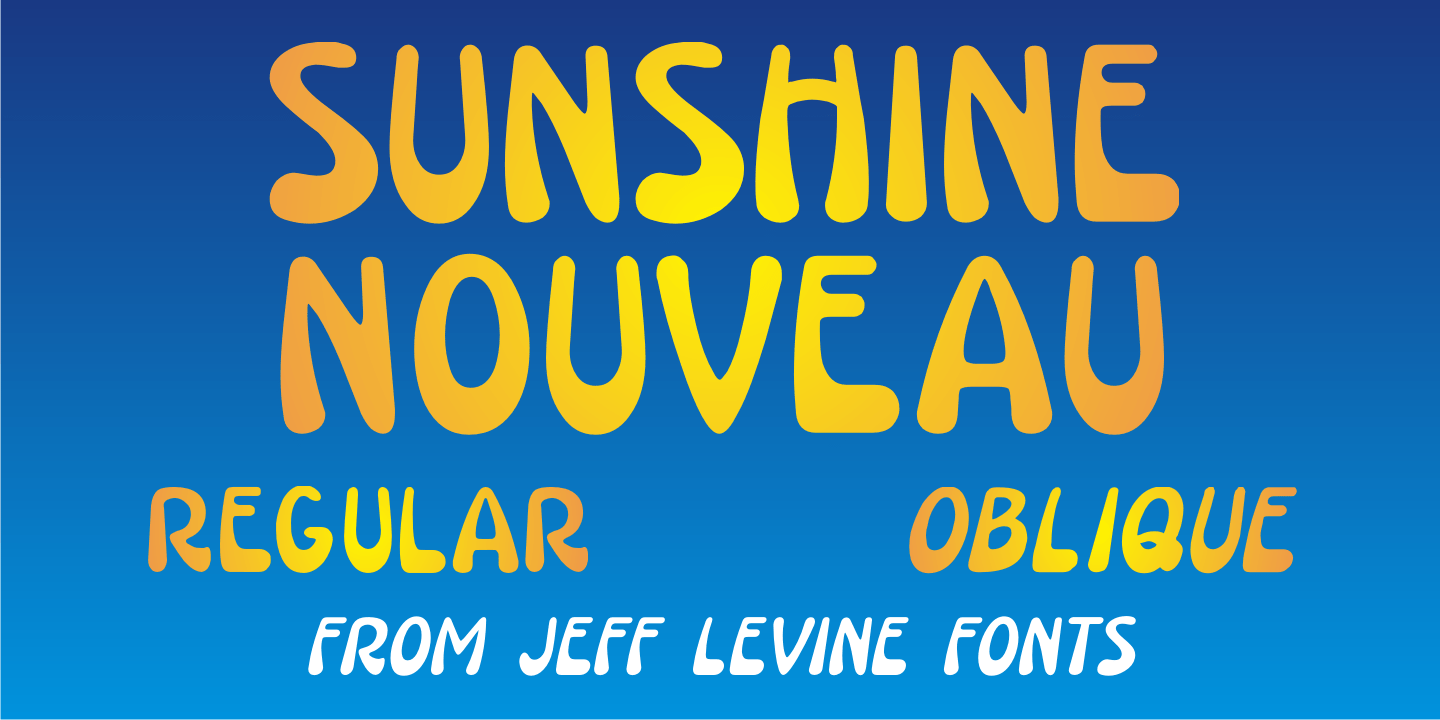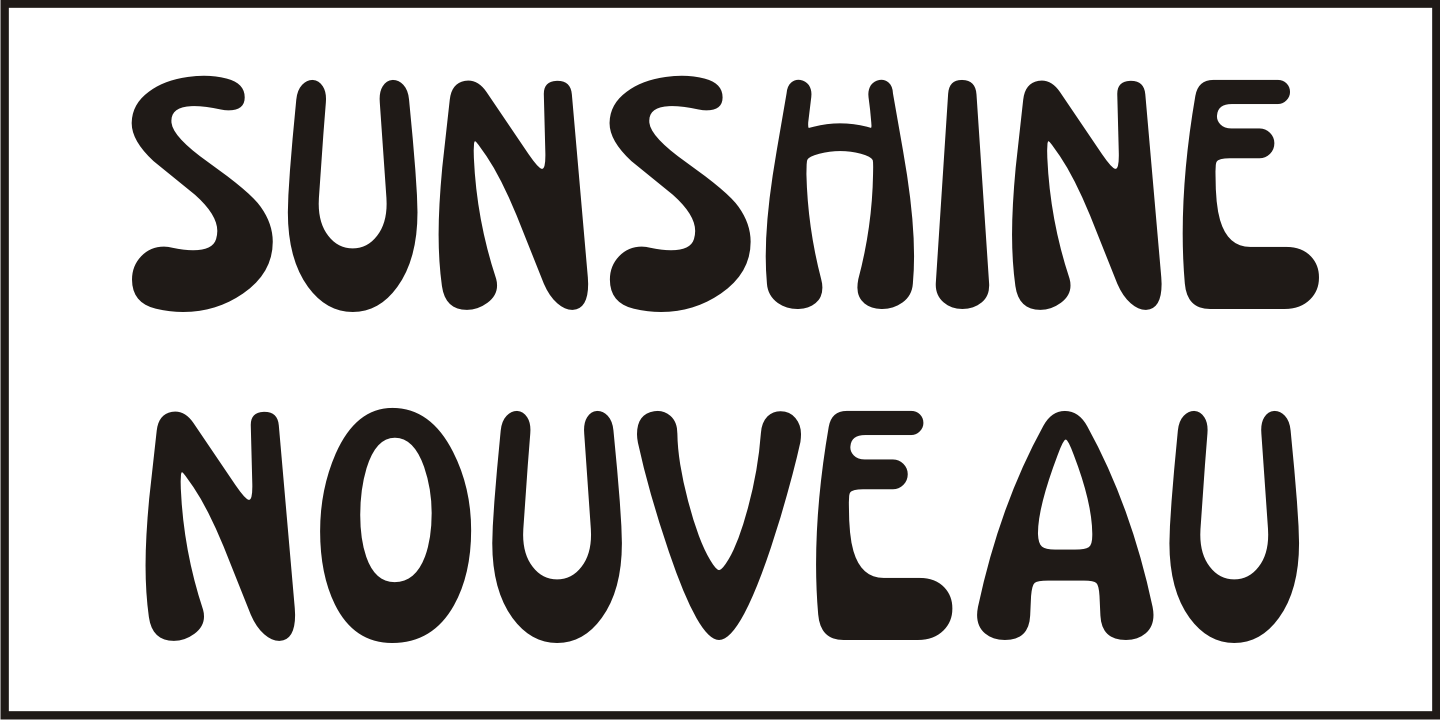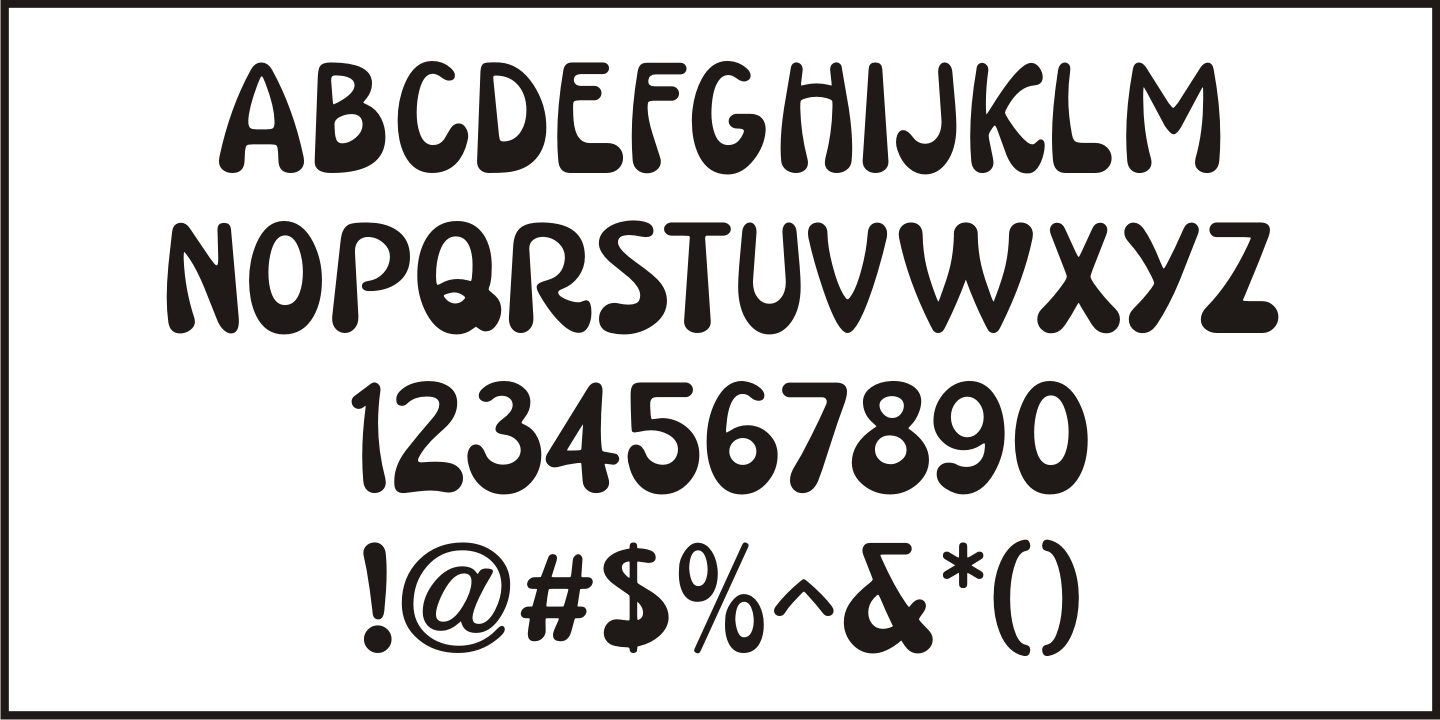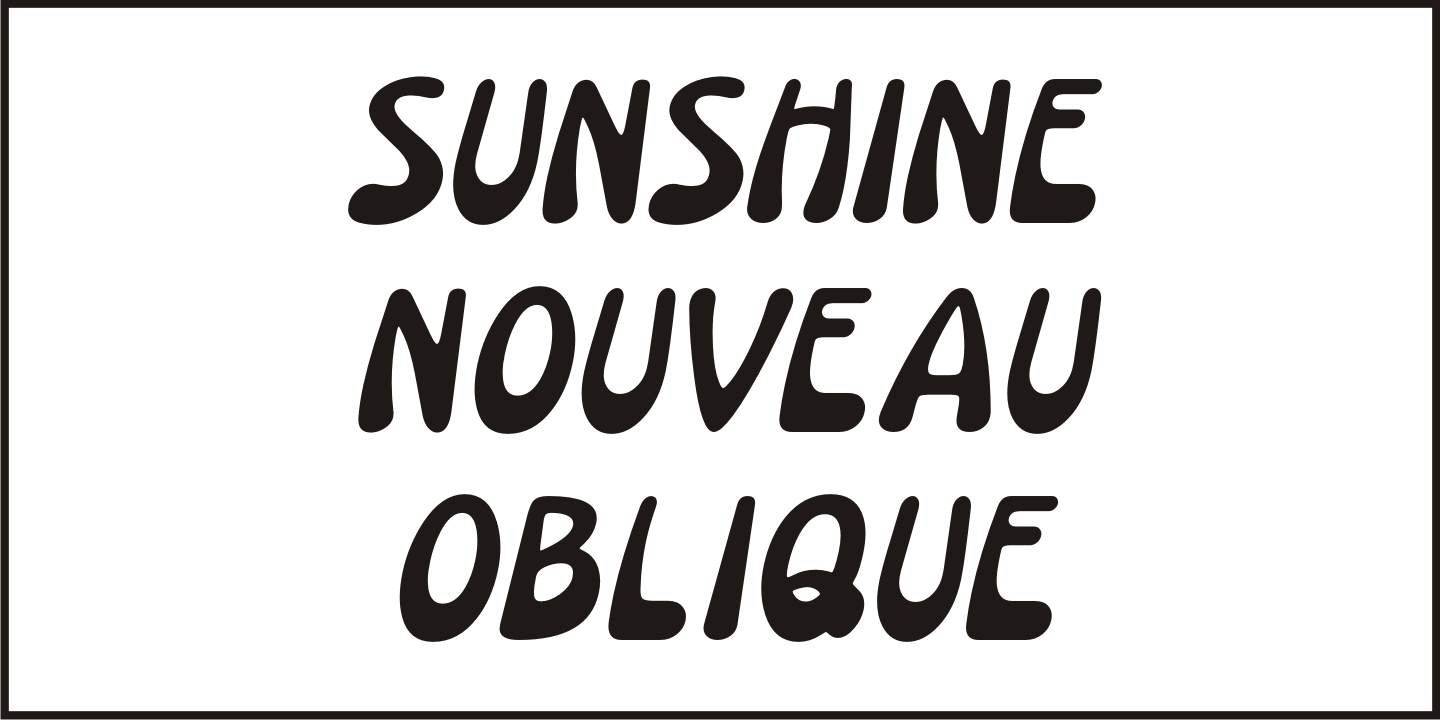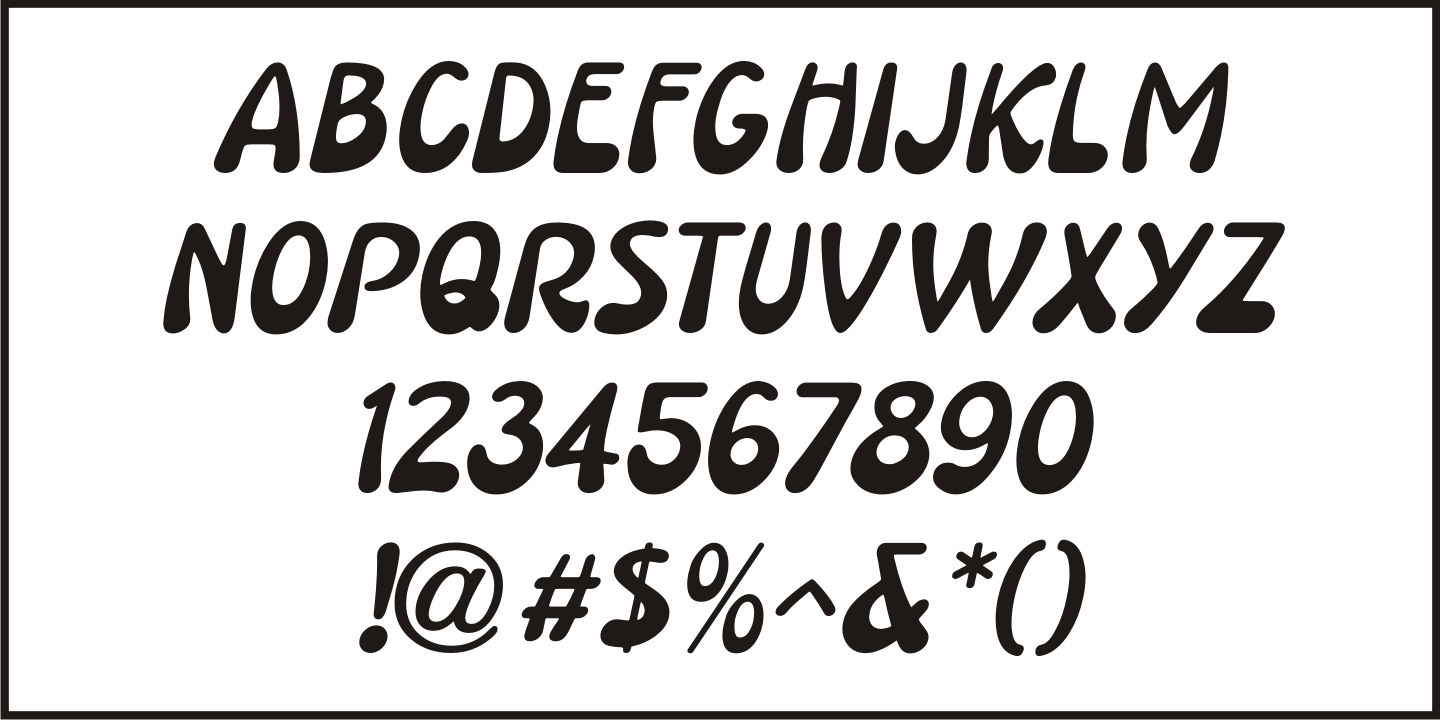
Sunshine Nouveau
Hand lettering done in a playfully distinct Art Nouveau style comprised the title on the cover of the 1916 sheet music for the song 'Your Mother is Your Best Friend After All'.
This served at the working model for Sunshine Nouveau JNL, which is available in both regular and oblique versions.